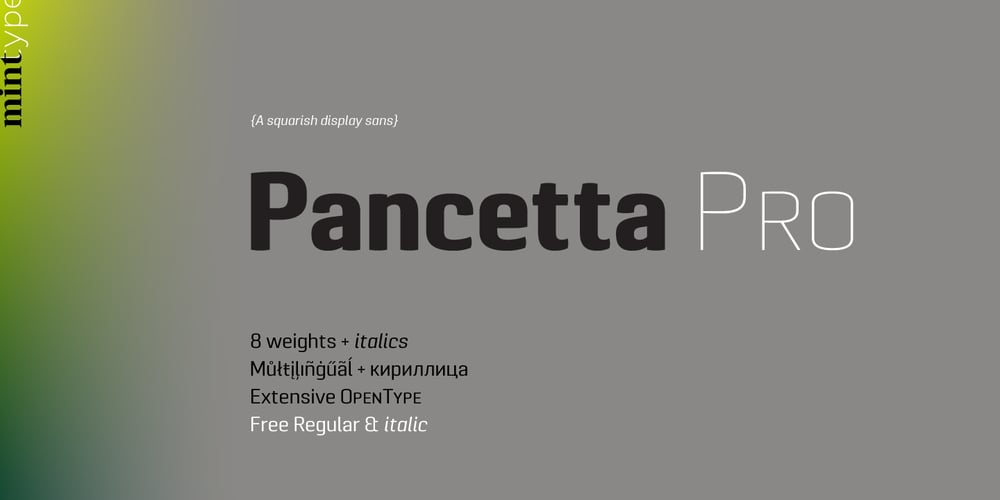
Pancetta Pro Font Family was designed by Andriy Konstantynov and published by Mint Type. Pancetta Pro contains 16 styles and family package options. Pancetta Pro is a squarish sans-serif typeface with semi-closed aperture and pillow-shaped terminals. The shape of a pillow is furthermore used to enliven the boring horizontal stems which are very frequent in Cyrillic script, and get rid of the right angles. Also take a look at Pancetta Pro’s serif companion – Pancetta Serif Pro